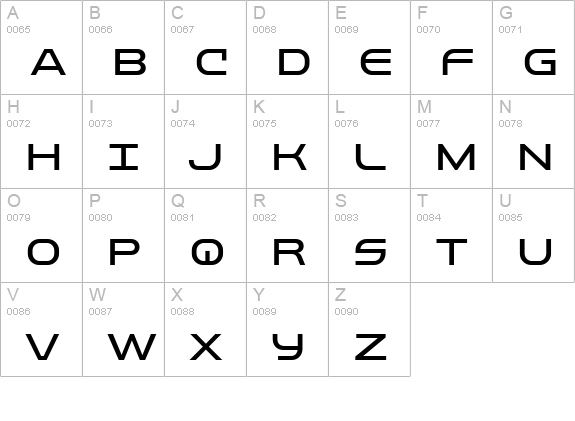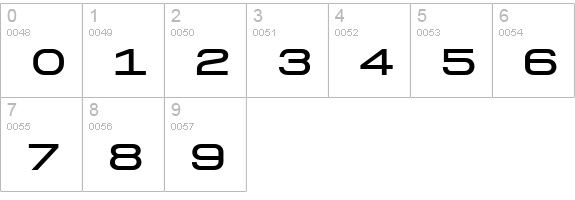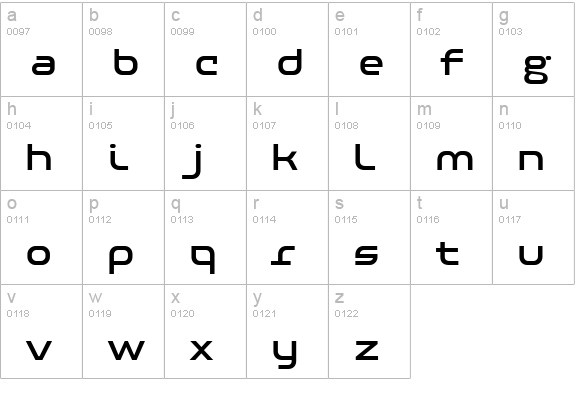
PFBaselinePro-Medium Font Details
PFBaselinePro-Medium is a balanced, medium-weight variant in the PFBaselinePro typeface family \xE2\x80\x94 well suited to sub-headlines, navigation, and balanced editorial work.
PFBaselinePro-Medium is a versatile and elegant font that strikes the perfect balance between modernity and sophistication. With its clean lines and classic proportions, this typeface exudes professionalism and style. The medium weight offers a harmonious blend of readability and impact, making it ideal for a wide range of design projects. What sets PFBaselinePro-Medium apart is not only its timeless aesthetic appeal but also the fact that it is available for free download at FontsMarket.com. This means that designers and creatives can easily access this high-quality font without any cost, making it a valuable addition to their typography toolkit. Whether you're working on branding materials, editorial layouts, web design, or any other project that requires a touch of refinement, PFBaselinePro-Medium is sure to elevate your work with its sophisticated charm. Download it for free today and enhance your designs with this versatile and stylish font.